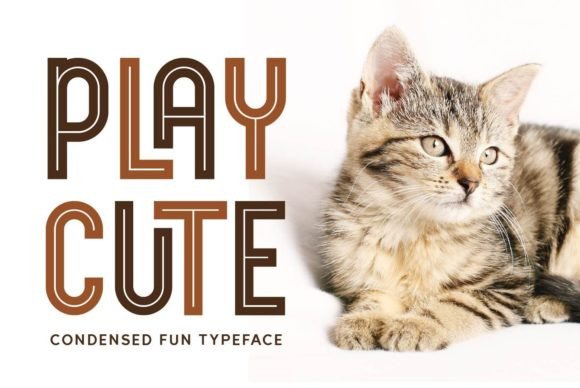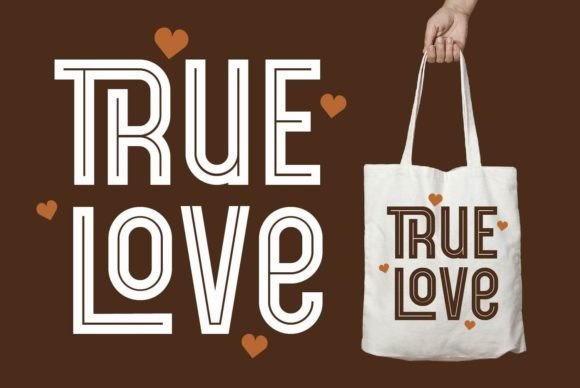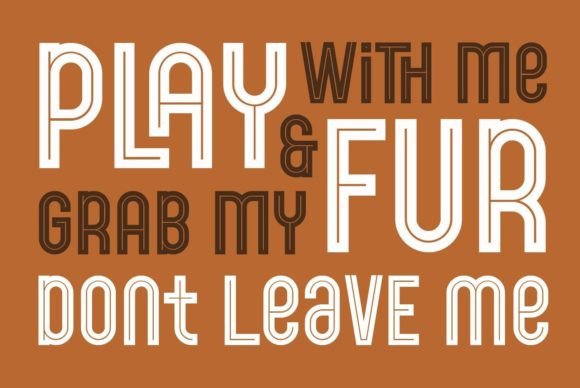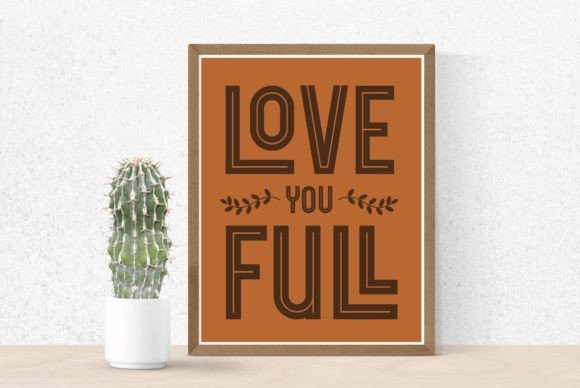
Playcute Font: A Cute & Playful Display Font for DIY Projects
About the Playcute Font
We are excited to introduce Playcute Font, a must-have typeface for any serious designer. Playcute is a fun and cool display font. Add it confidently to your projects and you will love the results.
Playcute’s playful, rounded forms make it ideal for headlines, logos, short taglines, and children’s products. It works exceptionally well in branding for companies targeting a younger demographic or those emphasizing fun and approachability. Avoid using it for body text or lengthy paragraphs; its unique character becomes overwhelming at smaller sizes and in extended passages.
Pairing Playcute with a clean sans-serif like Open Sans for body copy creates a strong contrast and excellent readability. For a more sophisticated feel, consider a classic serif like Garamond or a slightly more playful script like Allura, depending on the overall brand aesthetic.
Its core personality is undeniably cheerful and approachable, lending itself to projects needing a youthful and energetic feel. It’s not suited for formal contexts or where a more serious or minimalist approach is necessary.